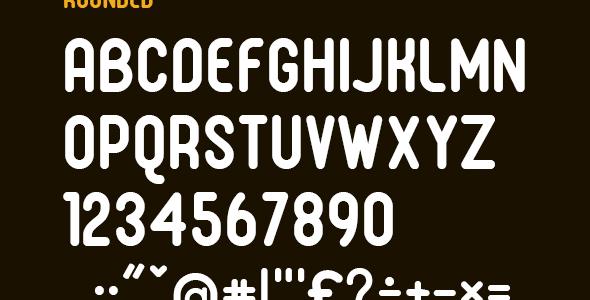
Benjamin Typeface
‘Benjamin’ is a nice futuristic typeface. Designed with love and care. It gives your text a artistic smart effect. Useful for various design project.
‘Benjamin’ Creator have 12 design version: Regular, Italic,Outline, Outline Italic, Rounded, Rounded Italic, Grunge, Grunge Italic, Alternative(lowercase), Alternative Italic(lowercase), Wedge High, Wedge High Italic by combine these versions you can create various attractive text styles. Latin characters are available.